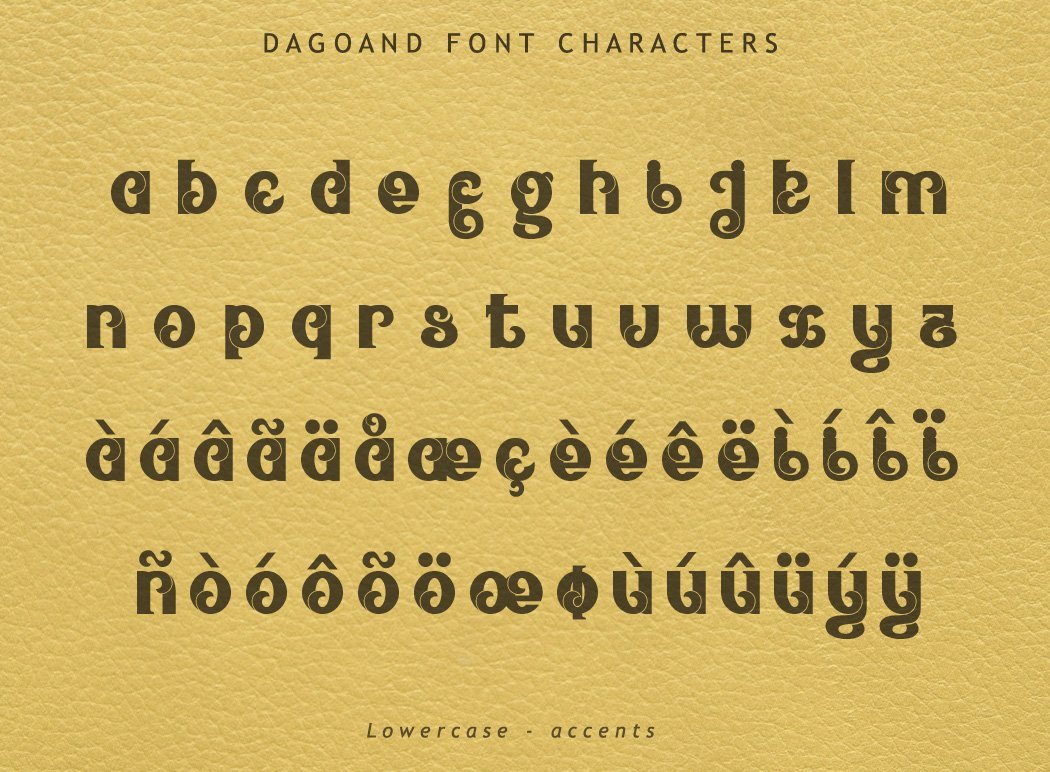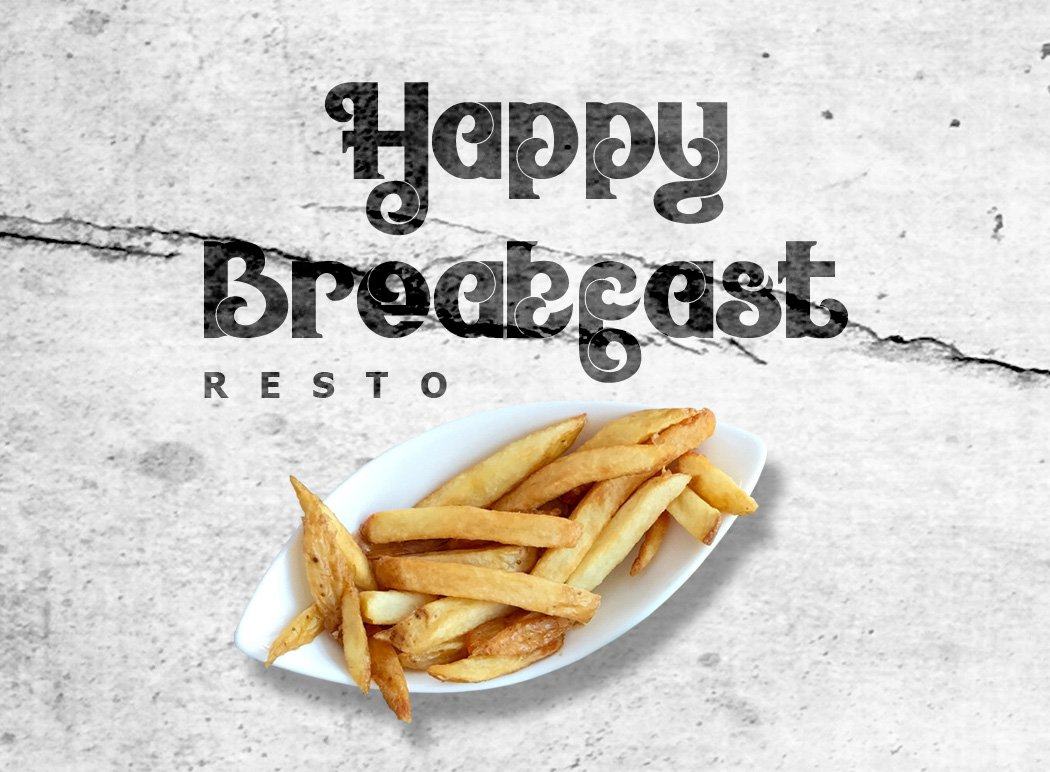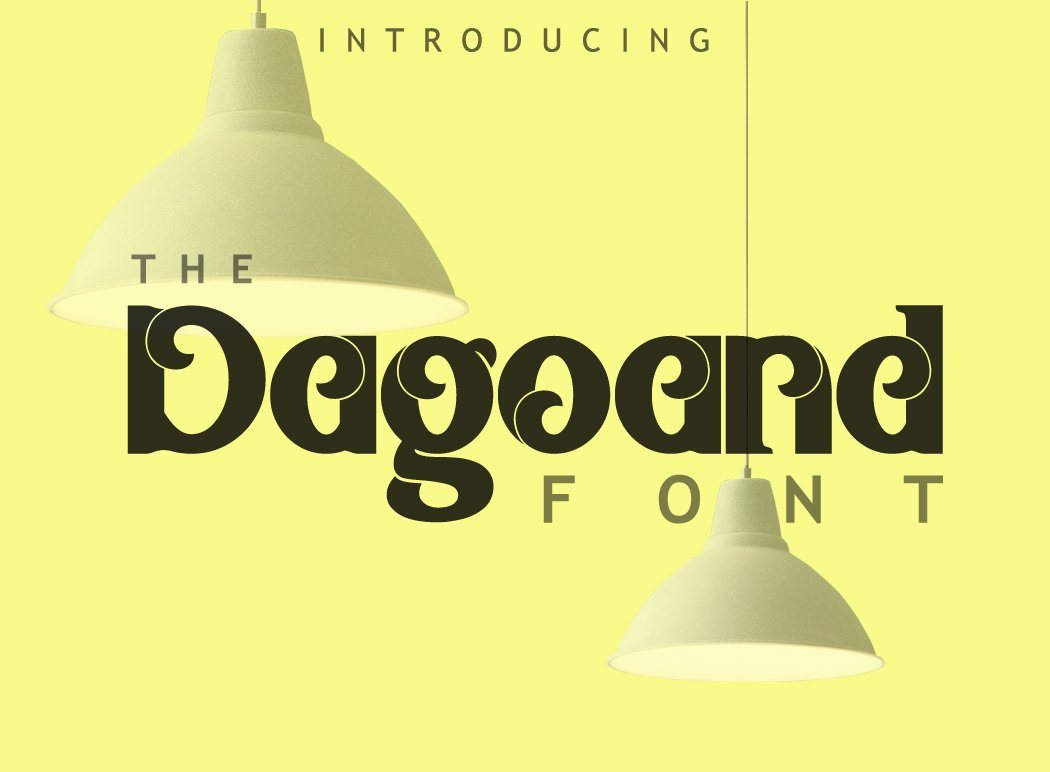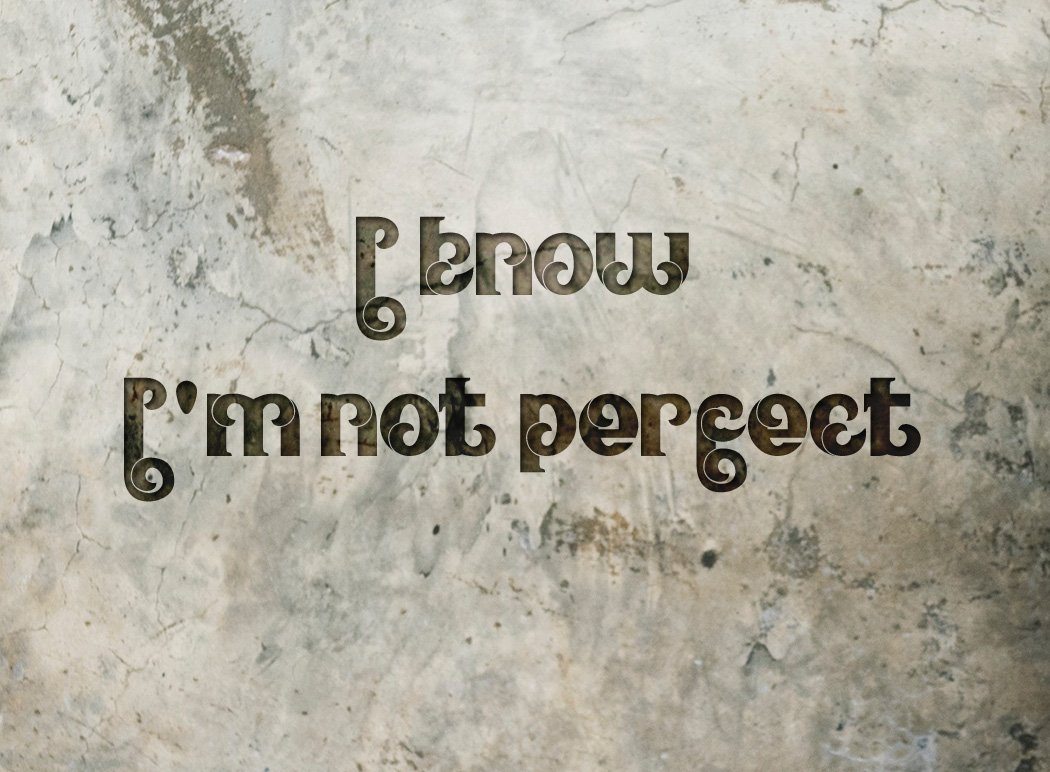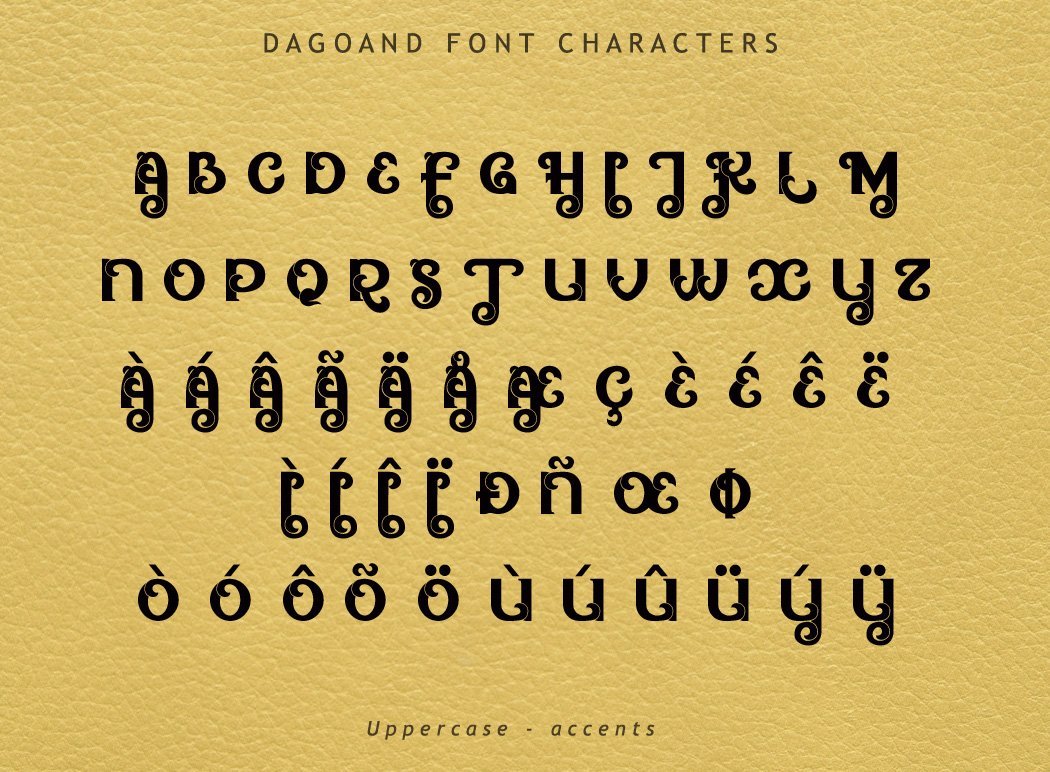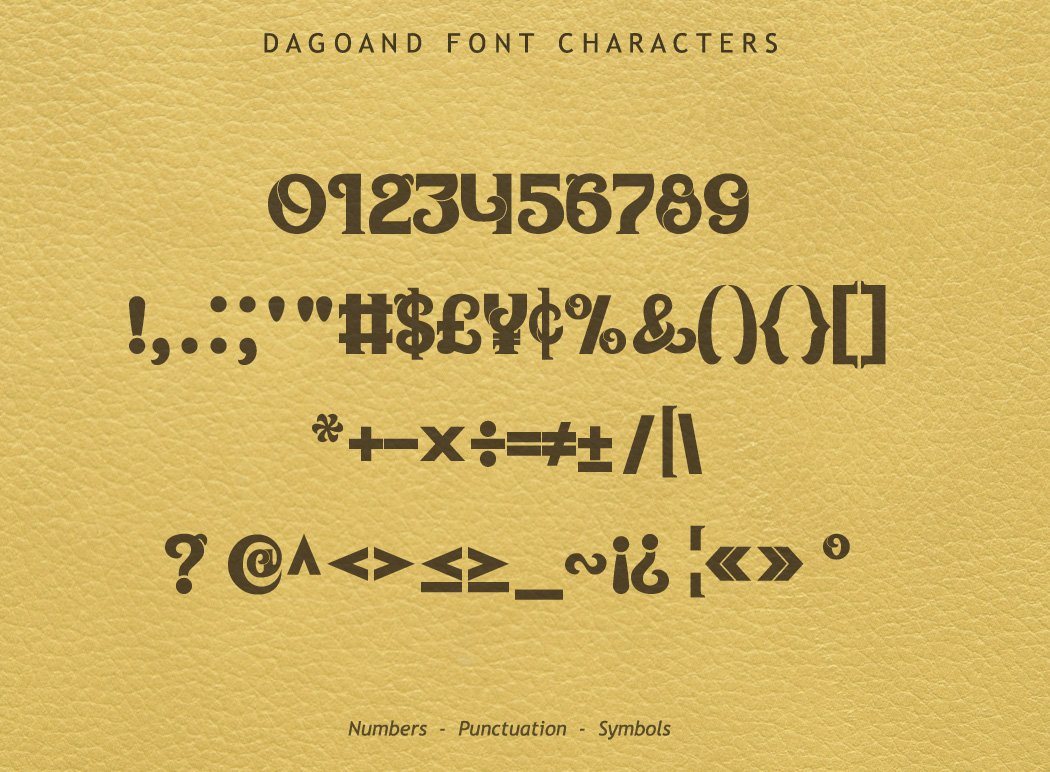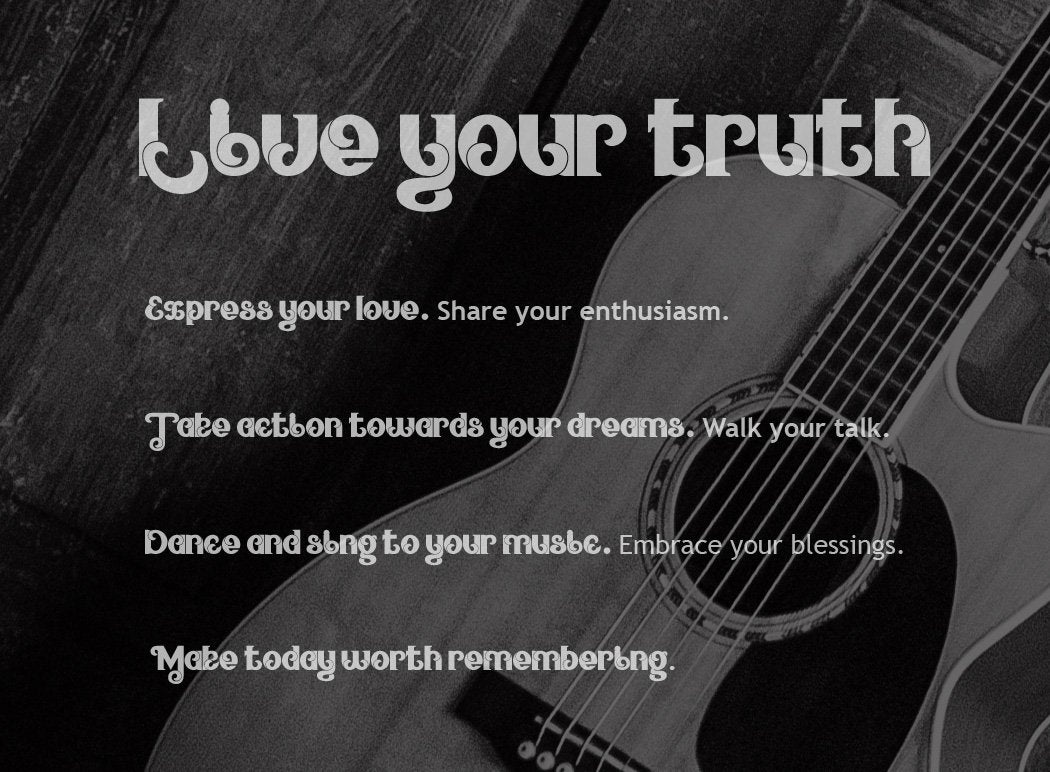
Dagoand Font
Dagoand Font Dagoand is a unique font with natural and carving ornament style. Great for your food themed designs, logo, headline, letterheads, etc. Features : Available in single OTF ,TTF and WOFF files Uppercase A-Z Lowercase a-z Numbers 0-9 Accents Punctuation PUA Encoded Multilingual support Support for Windows, Mac and Linux OS If you have any questions regarding this product kindly leave your message through the contact form or contact us at . Enjoy the font!! Thank you.. Don’t forget to visit our shop and check our products click here